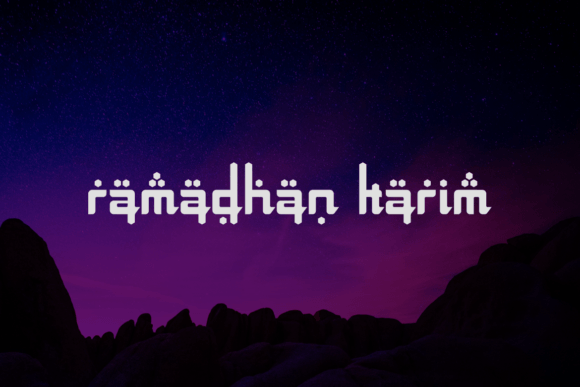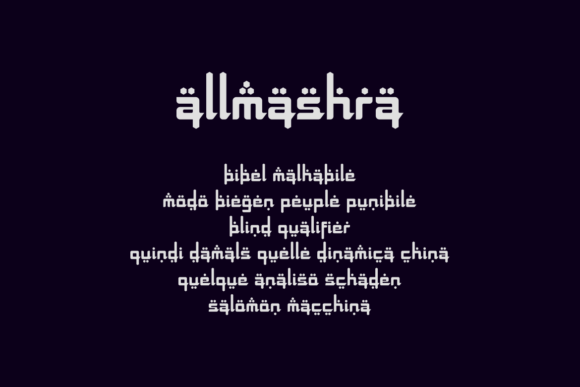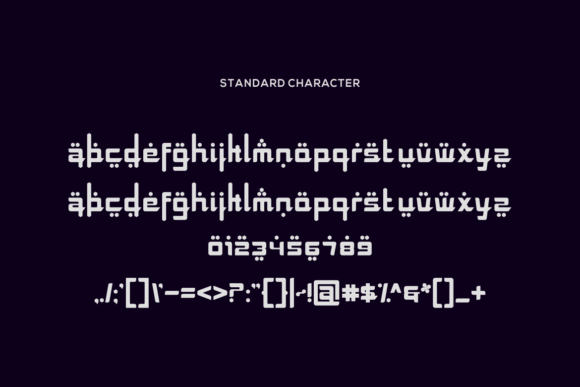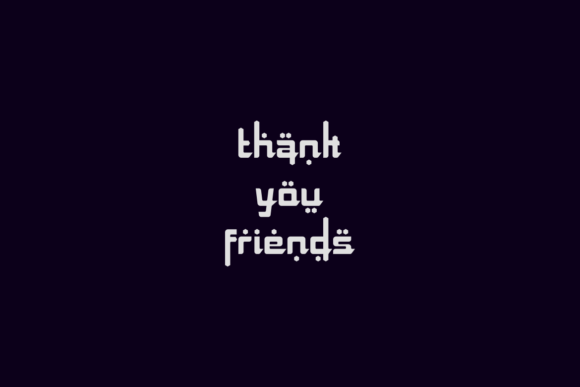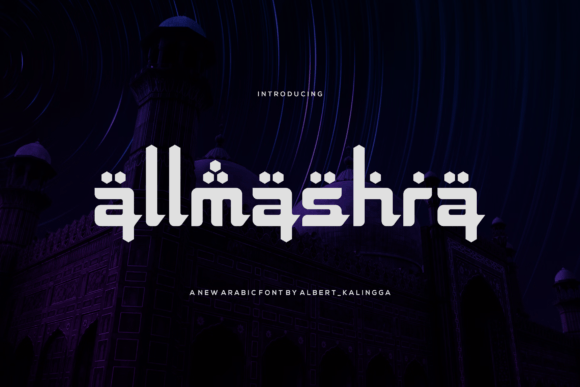
Introducing Allmashra: The Ultimate Arabic-Style Display Font
In the world of typography, fonts play a crucial role in conveying the tone and aesthetic of a design. For designers and crafters looking to add a touch of elegance and cultural richness to their projects, Allmashra font is here to revolutionize the game. This cool, Arabic-style display font seamlessly blends traditional sophistication with modern flair, making it the perfect choice for unique branding, striking posters, and artistic endeavors.
The Essence of Allmashra Font
Allmashra font is a masterpiece of modern typography, drawing inspiration from the intricate and flowing letterforms of Arabic calligraphy. Its design is characterized by complex, interconnected strokes that evoke a sense of cultural heritage and timelessness. Each letterform is carefully crafted to convey a sense of sophistication and luxury, making Allmashra an ideal choice for designers seeking to elevate their projects.
Key Features of Allmashra Font
- Intricate Letterforms: Allmashra’s intricate, flowing letterforms are inspired by traditional Arabic calligraphy, adding a touch of cultural richness to any design.
- Contemporary Flair: Despite its traditional roots, Allmashra boasts a modern, fresh feel that makes it perfect for contemporary designs.
- Elegant and Sophisticated: The font’s elegant and sophisticated aesthetic makes it ideal for high-end branding, luxury packaging, and artistic projects.
- Multilingual Support: Allmashra font supports multiple languages, making it a versatile choice for global designs.
Perfect for Unique Branding and Artistic Projects
Allmashra font is designed to help designers create unique and memorable branding, packaging, and advertising materials. Its distinctive letterforms and elegant aesthetic make it perfect for:
- Logo Design: Create a lasting impression with a custom logo that showcases your brand’s personality and style.
- Poster Design: Add a touch of sophistication to your posters and flyers with Allmashra’s striking letterforms.
- Packaging Design: Elevate your packaging designs with the luxurious and elegant feel of Allmashra font.
- Artistic Projects: Use Allmashra to add a touch of cultural richness and sophistication to your artistic endeavors, such as illustrations, paintings, and digital art.
Why Choose Allmashra Font?
In a world where typography plays a crucial role in design, Allmashra font stands out from the crowd. Here are just a few reasons why designers and crafters are falling in love with this amazing font:
- Unique and Memorable: Allmashra’s distinctive letterforms ensure that your designs will stand out and be remembered.
- Versatile: The font’s elegant and sophisticated aesthetic makes it perfect for a wide range of design applications.
- Cultural Significance: Allmashra’s Arabic-inspired design adds a touch of cultural richness and heritage to any design.
In conclusion, Allmashra font is a game-changer for designers and crafters looking to add a touch of elegance and cultural richness to their projects. Its intricate, flowing letterforms and sophisticated aesthetic make it perfect for unique branding, striking posters, and artistic endeavors. With its versatility, ease of use, and cultural significance, Allmashra font is sure to become a staple in any designer’s toolkit. So why wait? Elevate your designs with the sophisticated beauty of Allmashra font today!